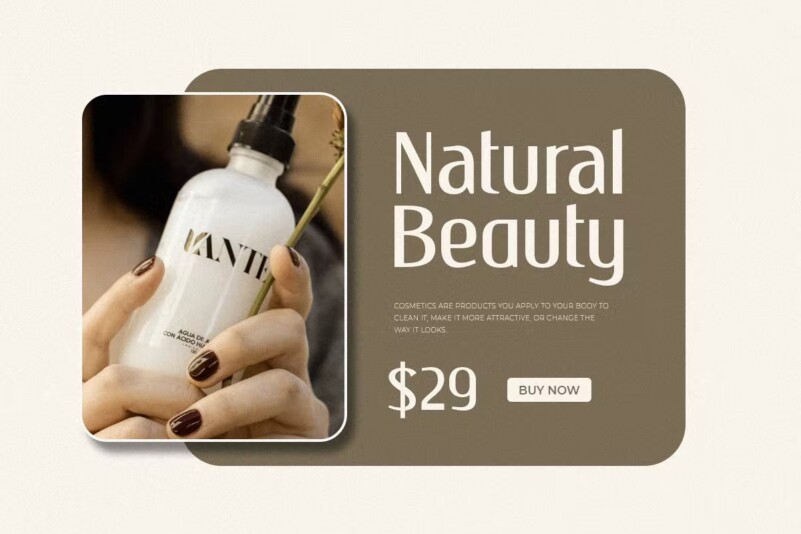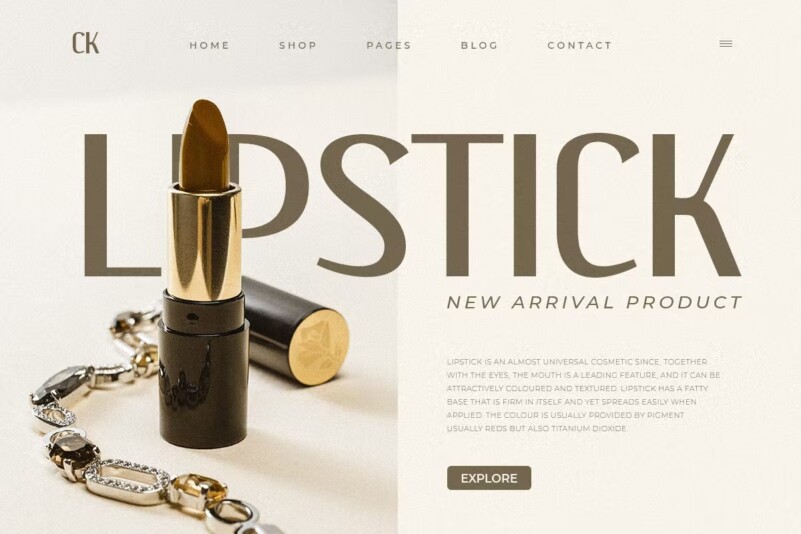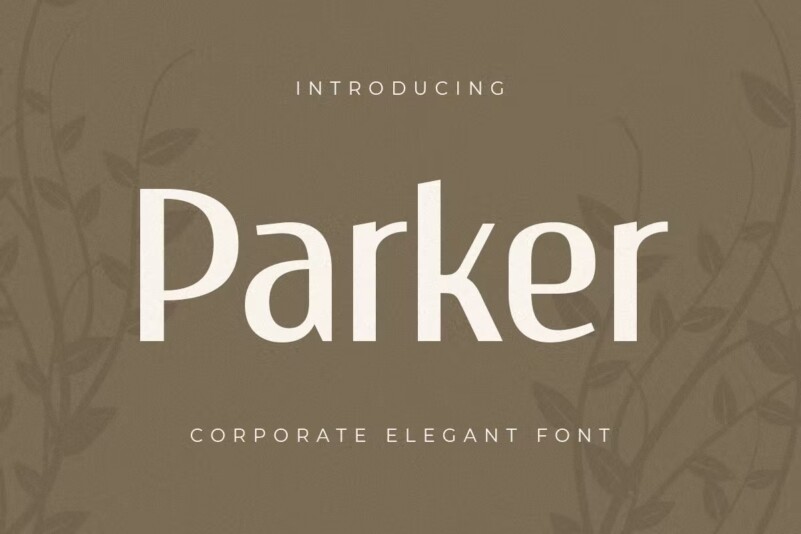
Parker – Corporate Elegant Font
Stylish sans serif font with extra perfect contrast style ready for all branding needs will be ready to add value to your brand. It’s so nice to take advantage of designers or product owners who need solutions to make their design more sleek and modern. And especially for the Parker font, we prepared all ligatures and alternate characters to help you create unlimited variations for your creative needs.